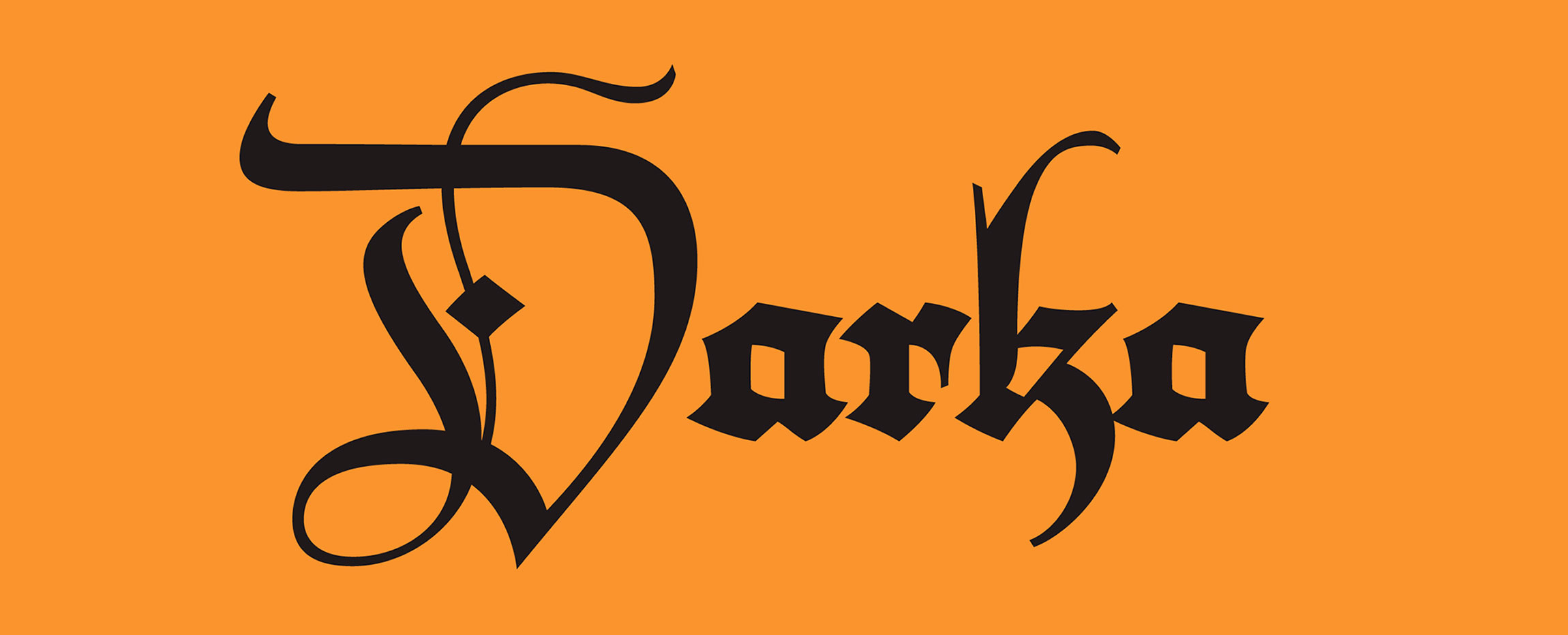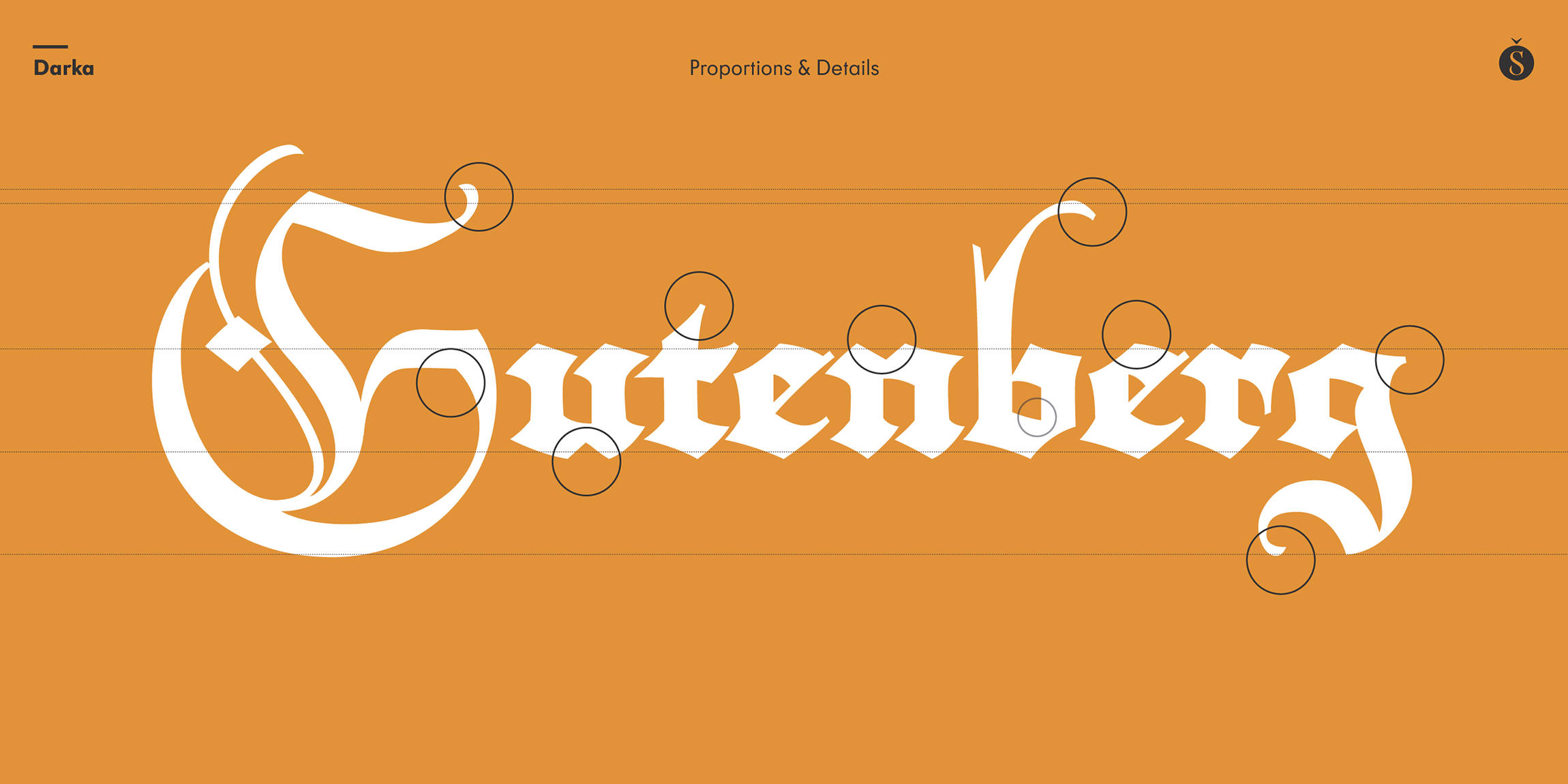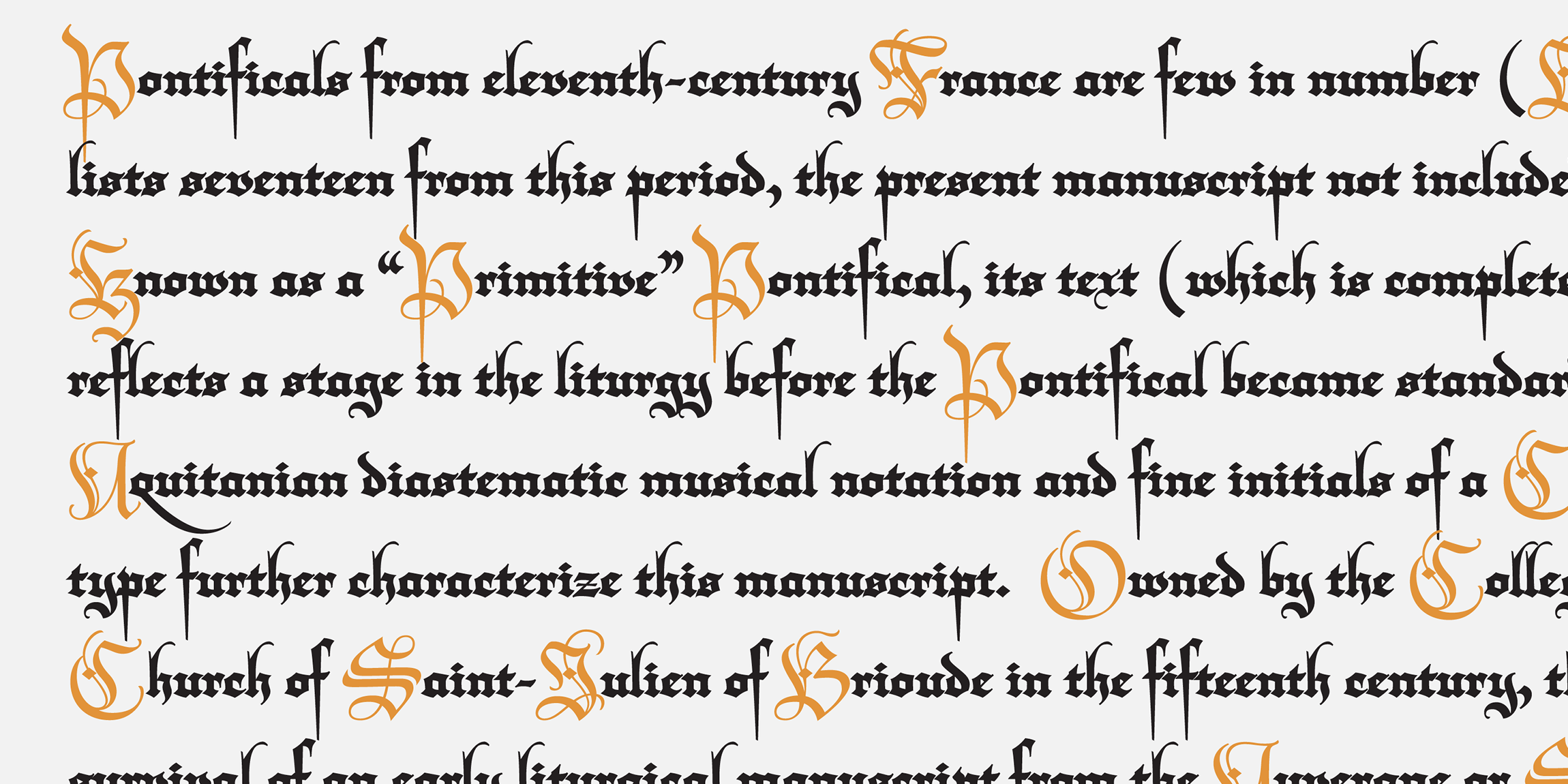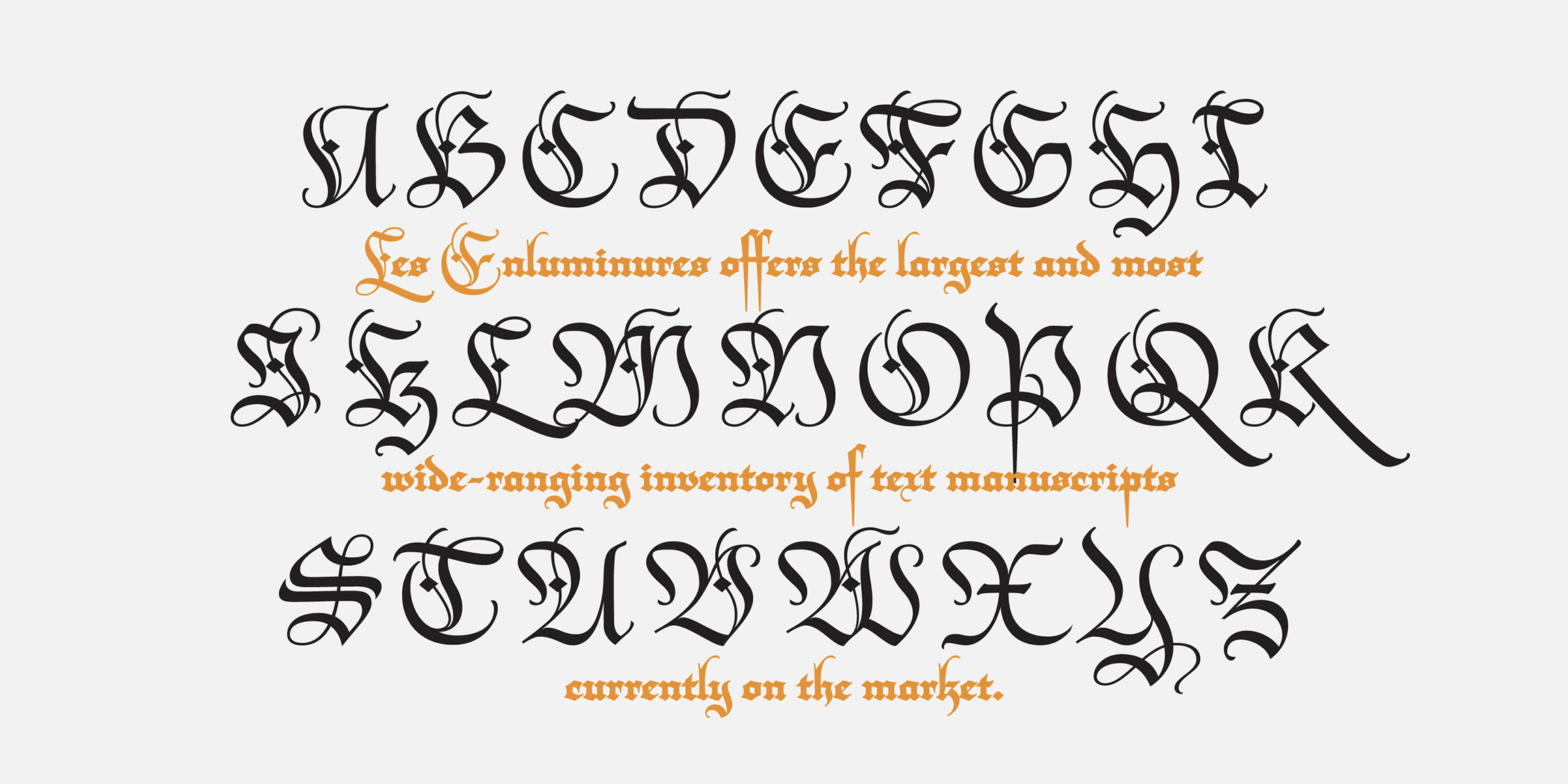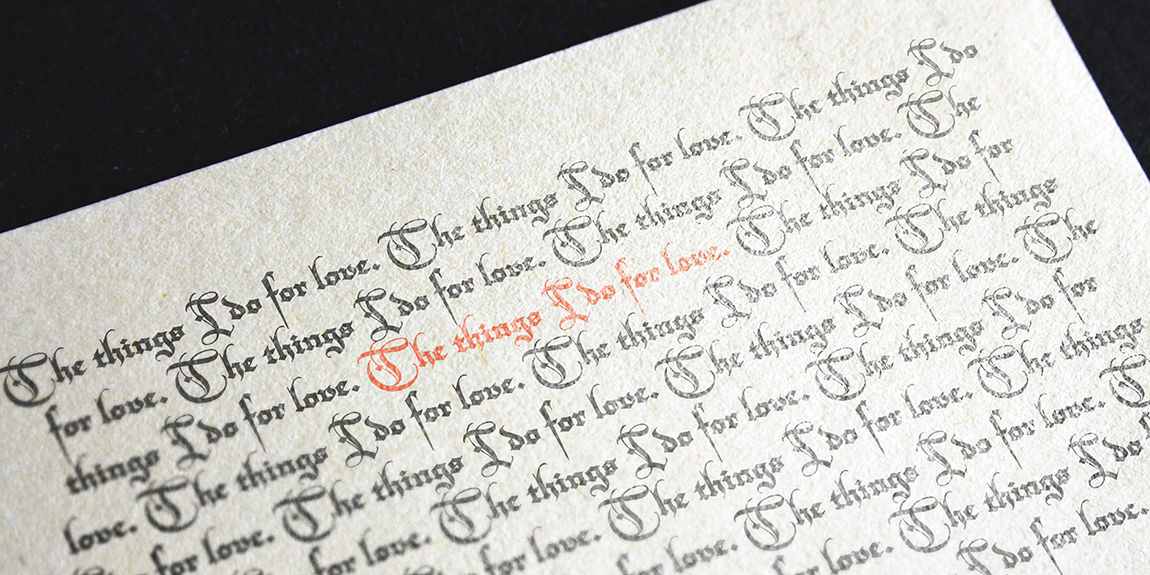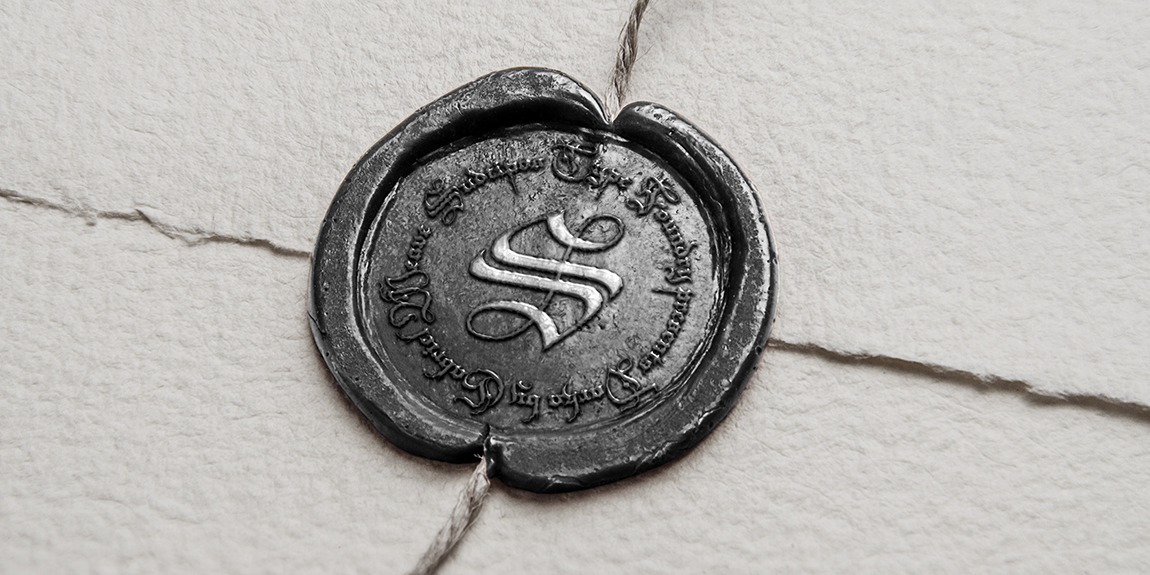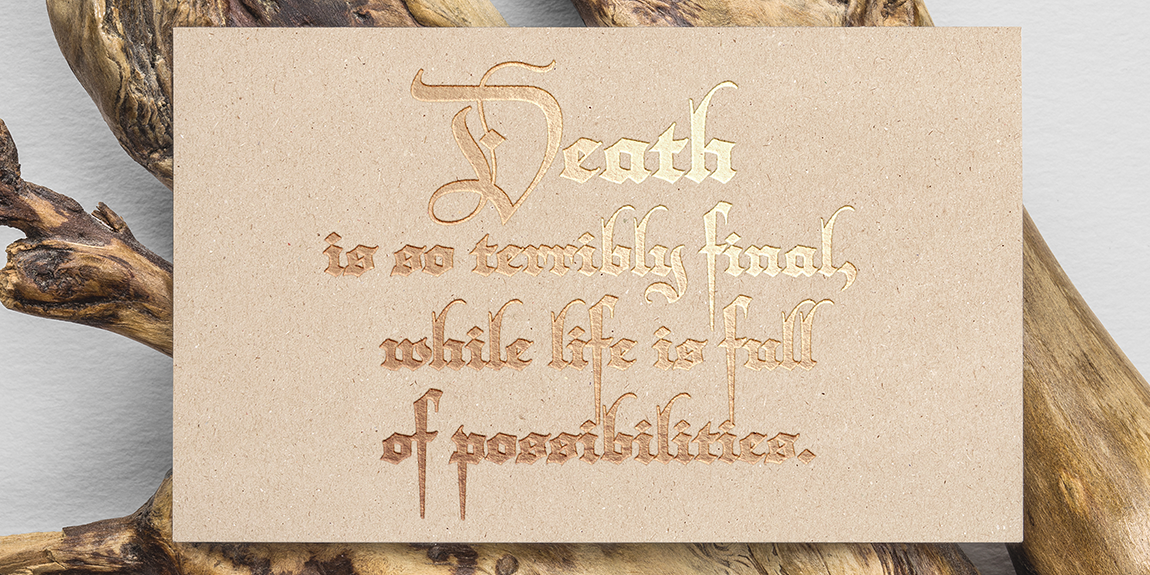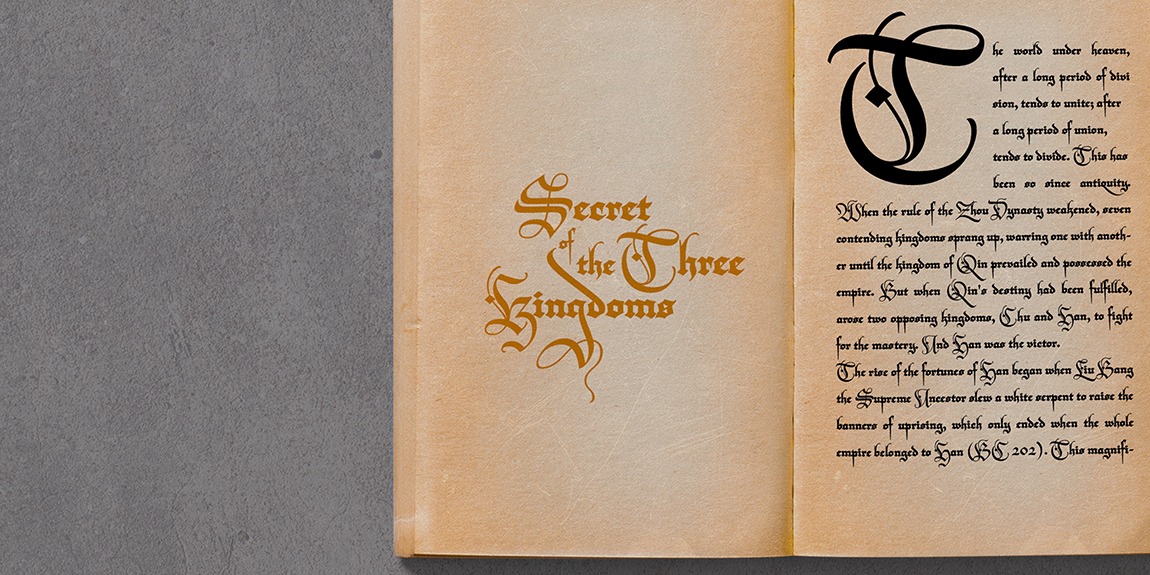
Name: Darka
Designer: G.M. Meave
Foundry: Sudtipos
Release Date: May 2019
Back story: Darka started as a personal project for Mexican designer Gabriel Martínez Meave. To preserve the hand-written origins and delicate tension in this digital font based on ancient blackletter styles, he developed a comprehensive set of 415 alternate glyphs, flourishes and special signs. “I’ve been quite fond of blackletter types and calligraphy for many years now, as well as Gothic and Medieval art and literature,” Meave says. Darka received an Award of Excellence from the Type Directors’ Club of New York in 2019.
Why is it called Darka? “Because she is a splendid, mysterious dark lady reincarnated in digital vectors as a blackletter font!” says the designer. “Calling it Darka, a Mexican/Teutonic/Slavonic sort of name, seemed appropriate.”
What are its distinguishing characteristics? This stylish, inventive typeface possesses a warm Mexican soul lurking inside its chilly 15th century Northern European origins. Darka is an amalgam of several styles of blackletter, blending the modulated balance of Textura and the flow of Fraktur with the elegant lowercase-to-uppercase ratio of Bâtarde. Its precise terminals (both angled and rounded) and seductive curves contrast with its dangerous sharp edges. Ascenders on lowercase letters keep the little spur common to other blackletter alphabets, and the lowercase “f” drops to an exaggerated dagger-like point. Complex ornamental capitals and flourishes add calligraphic flair.
What should I use it for? “Using blackletter type is complicated sometimes, since today’s typographic landscape is dominated by sans serifs, serif text typefaces, and many predictable display fonts,” says Meave. “Darka makes an excellent display typeface and, surprisingly, even a distinctive, crisp font for short texts. I think it’s a very usable blackletter face, for those occasions you may need it.”
The subtle variations and hybrid quality of Darka’s letterforms help the typeface to step away from its centuries-old roots and feel welcome in contemporary settings. It works best in inventive headings, daring titles, deluxe packaging, tattoos, and other idiosyncratic uses where a dark, sultry Gothic aesthetic is a welcome presence.
What other typefaces do you like to pair it with? A rounded English script face with a bit of handwritten texture, such as Wordless Script, is an unexpectedly harmonious counterpoint to Darka’s dangerous angles. “In fact, these combinations of Gothic bold type with delicate, light connected scripts were quite common in the late 18th and early 19th centuries,” Meave says. “The effect is superb.” For a very legible serif text counterpart, take a look at Afterall, whose gentle quirks play nicely with Darka’s pronounced oddities.